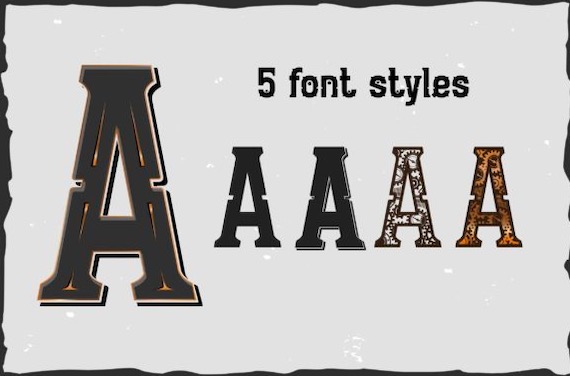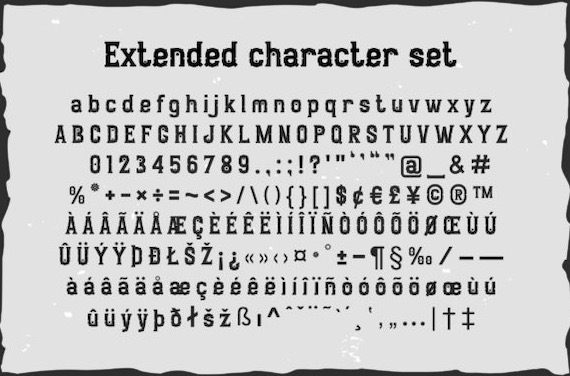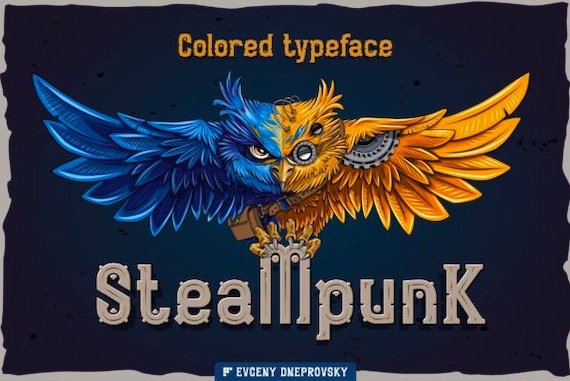
Steampunk Font is a classy and incredibly unique color Display typeface that was created and shared by Fractal font factory. So, it also has the potential to elevate your design to a new style.
Steampunk Display Font